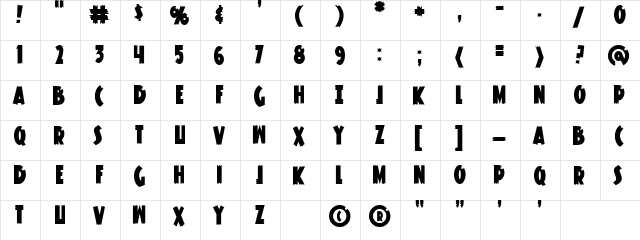
Knuckle Sandwich Classic Regular
Design Context for Knuckle Sandwich Classic Typeface
Knuckle Sandwich Classic has the warm character of retro typography — evoking diners, record sleeves, and the golden age of print advertising.